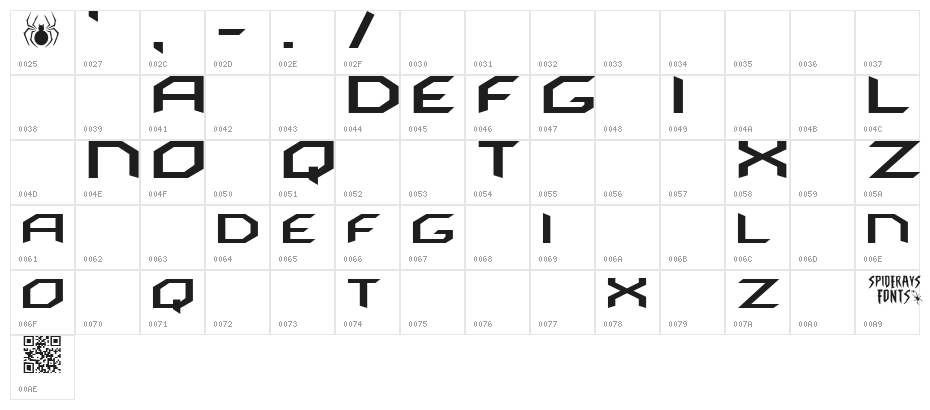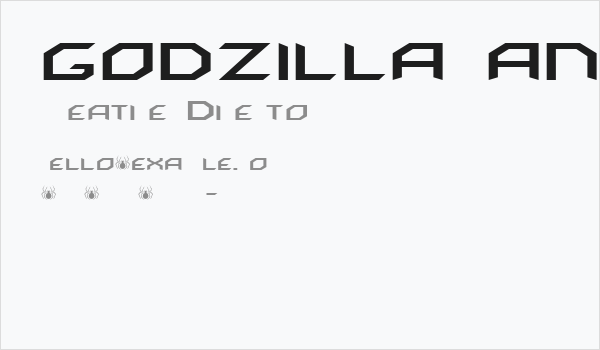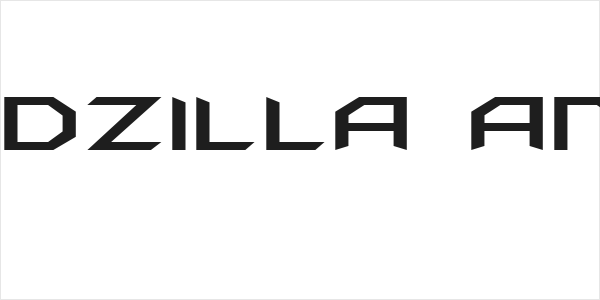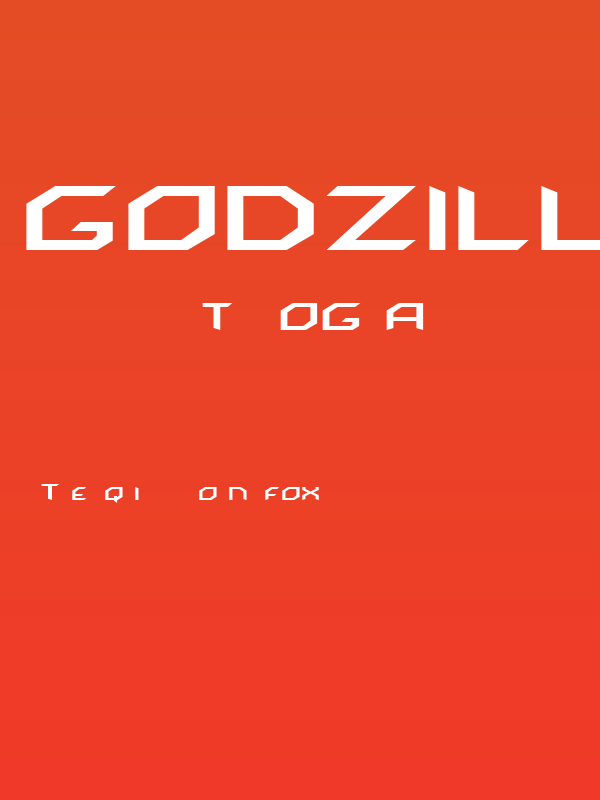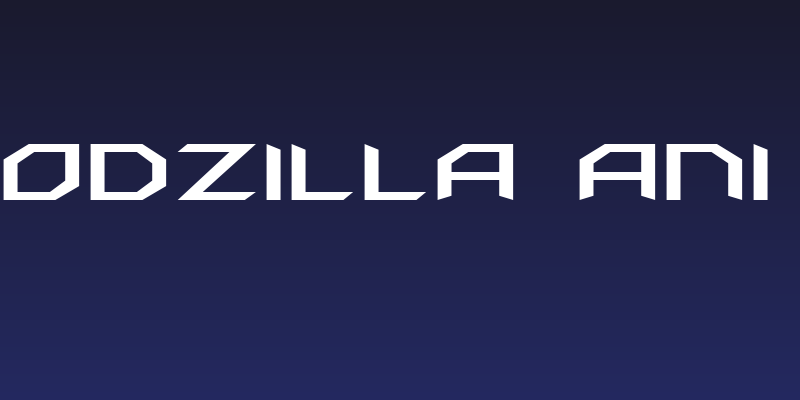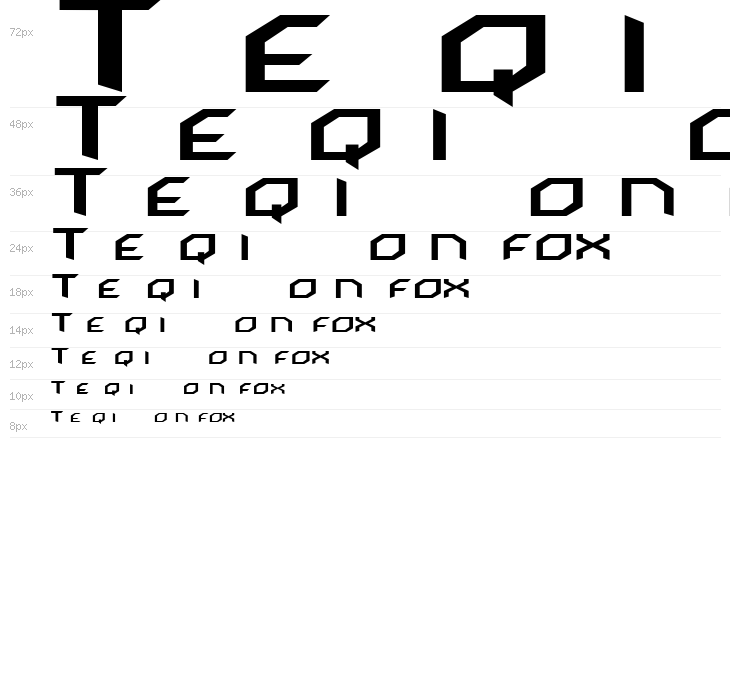
GODZILLA ANIME Font
GODZILLA ANIME Description
This font features a bold, angular design with a futuristic and mechanical feel. The characters are constructed with sharp edges and geometric shapes, giving them a strong and impactful appearance. The uppercase letters are particularly striking, with a blocky and robust structure that commands attention. The font's unique style is reminiscent of industrial or sci-fi themes, making it ideal for projects that require a modern and edgy look. The consistent stroke width across characters provides a uniform appearance, while the angular cuts and corners add a dynamic and aggressive touch.
GODZILLA ANIME
| Proposed Projects | Ideal for sci-fi movie posters, video game titles, technology branding, and industrial-themed designs. |